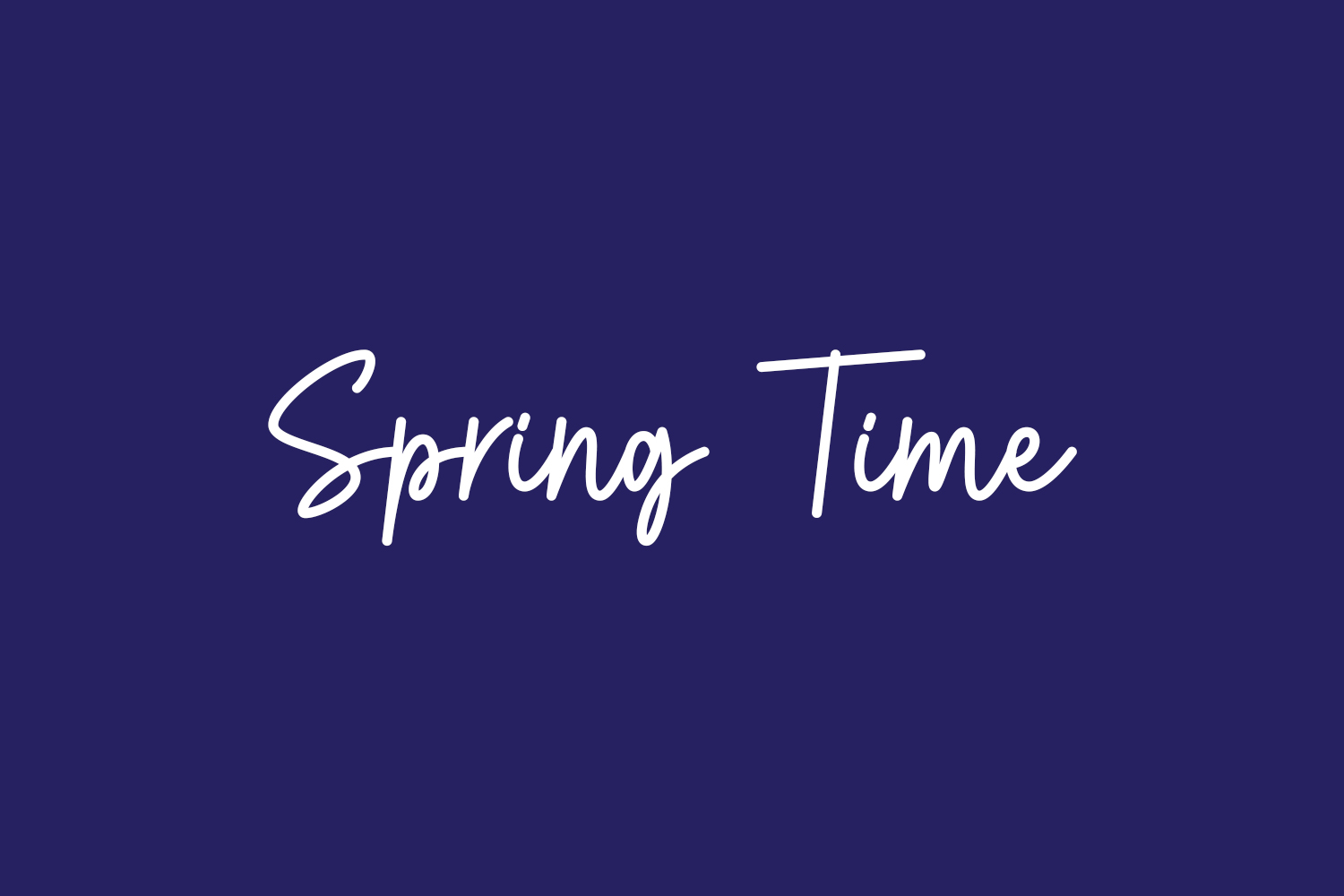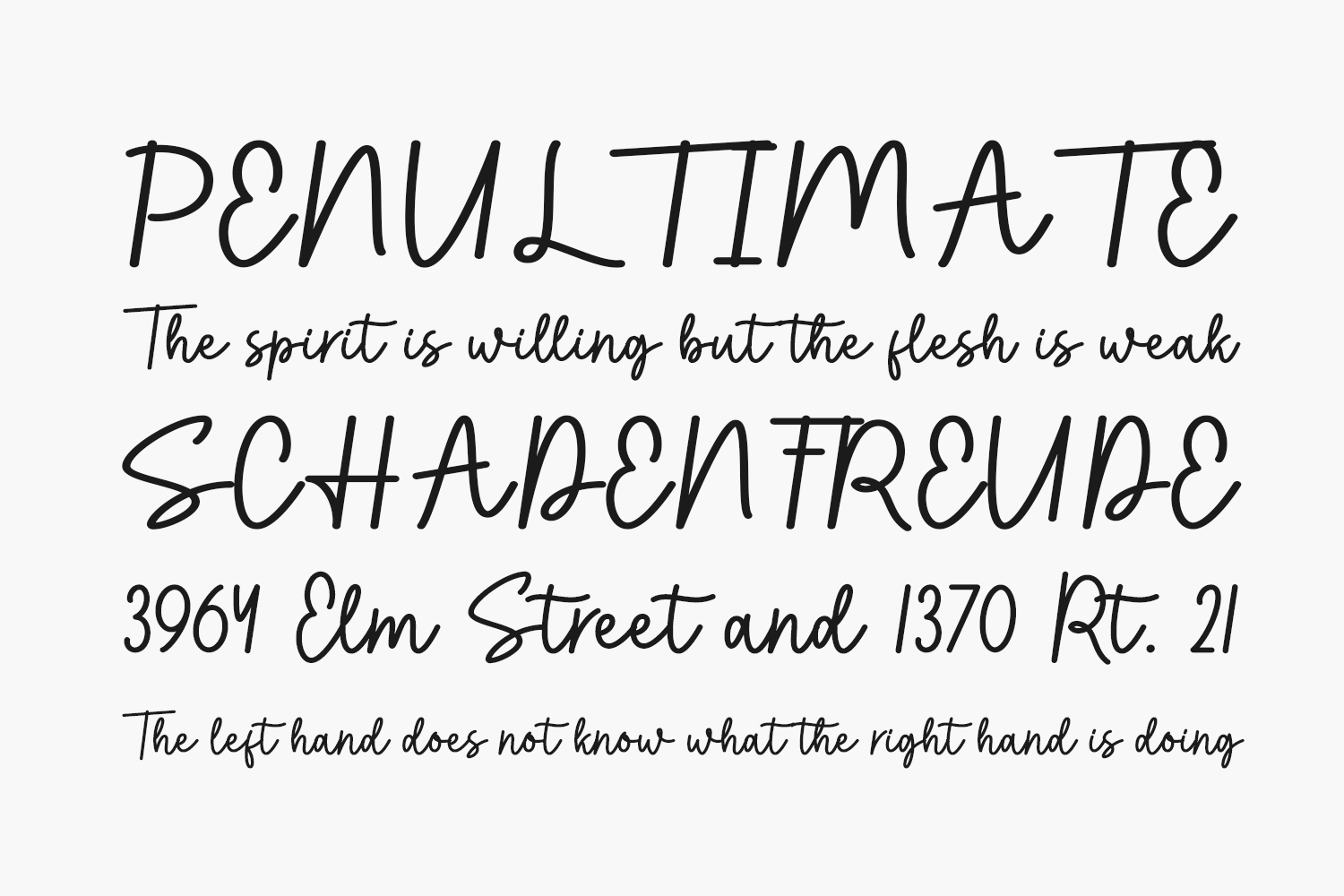
Spring Time Free Font is a refined script font that strikes the perfect balance between delicacy and boldness. Its harmonious and diverse letterforms have been meticulously crafted to elevate the allure of your creative endeavors. Immerse your projects in an air of elegance with this thoughtfully designed font. Spring Time Free Font is free for personal use only. Please purchase the full version for commercial use.